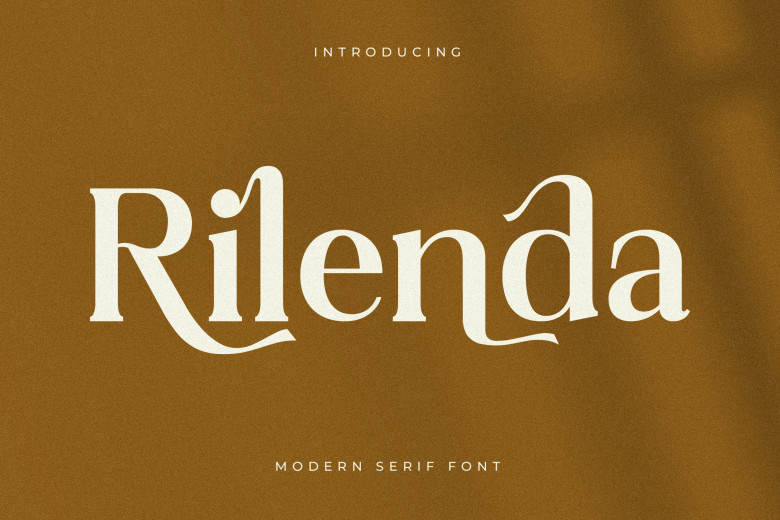
Rilenda Font
Rilenda is a modern stylish serif font. A serif typeface with 1 style, available from Adobe Fonts for sync and web use. Its smooth curves and stylish appearance will be a great help in creating a modern and pleasant design. This typeface is perfect for a modern and stylish logo, books or movies titles, fashion brand, magazine, car, clothes, or lettering as well as traditional quotations.
Rilenda Serif Font